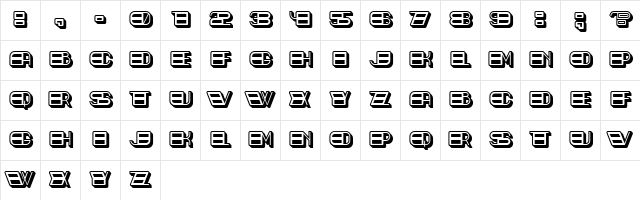
Toledo Half Filled Regular Free Font
Toledo Half Filled Regular
Design Context for Toledo Half Filled
Toledo Half Filled is a composed and adaptable typeface that performs quietly and consistently across a wide range of design contexts.
Pro Tip: Use Toledo Half Filled in both headline and body roles to test its range before committing to a single application.